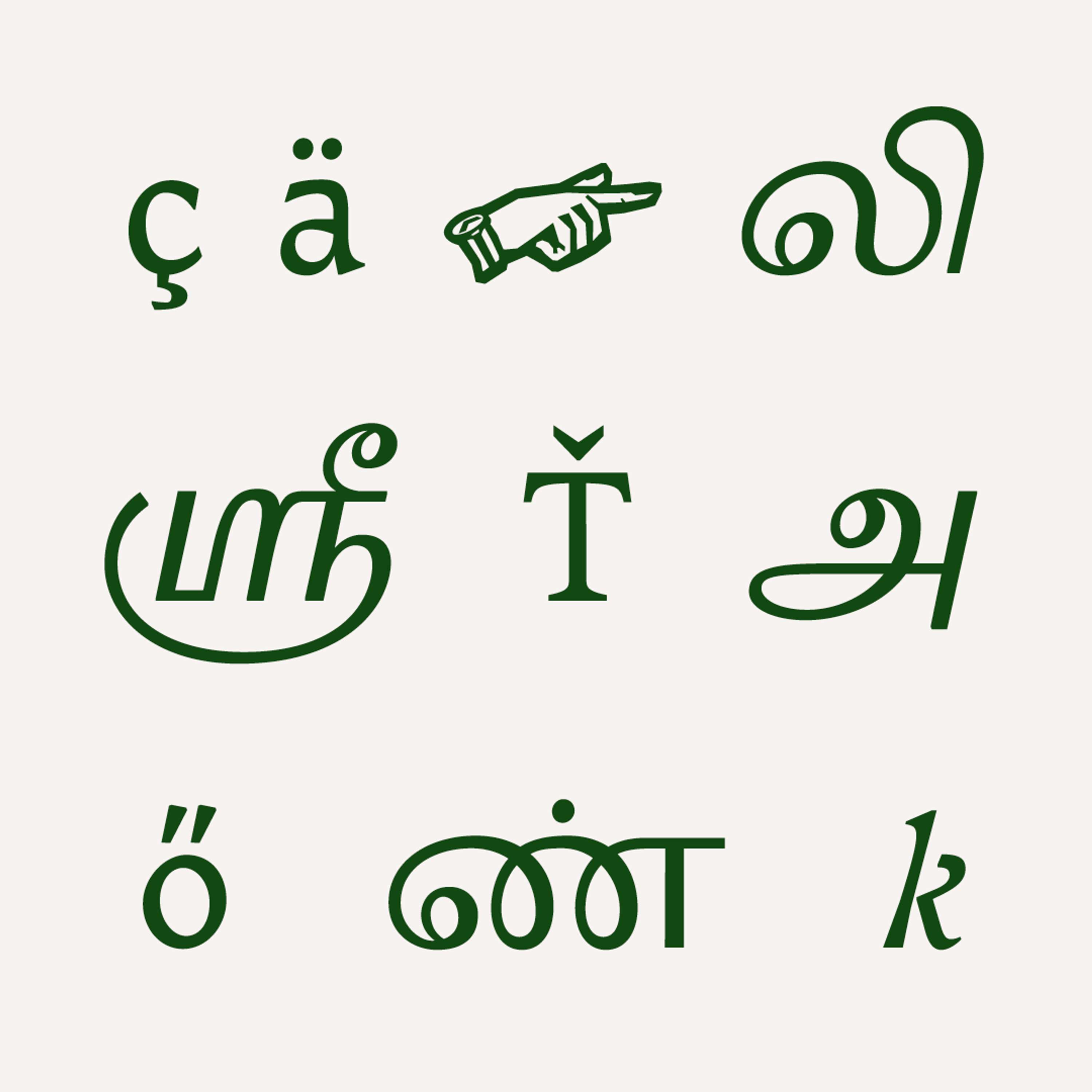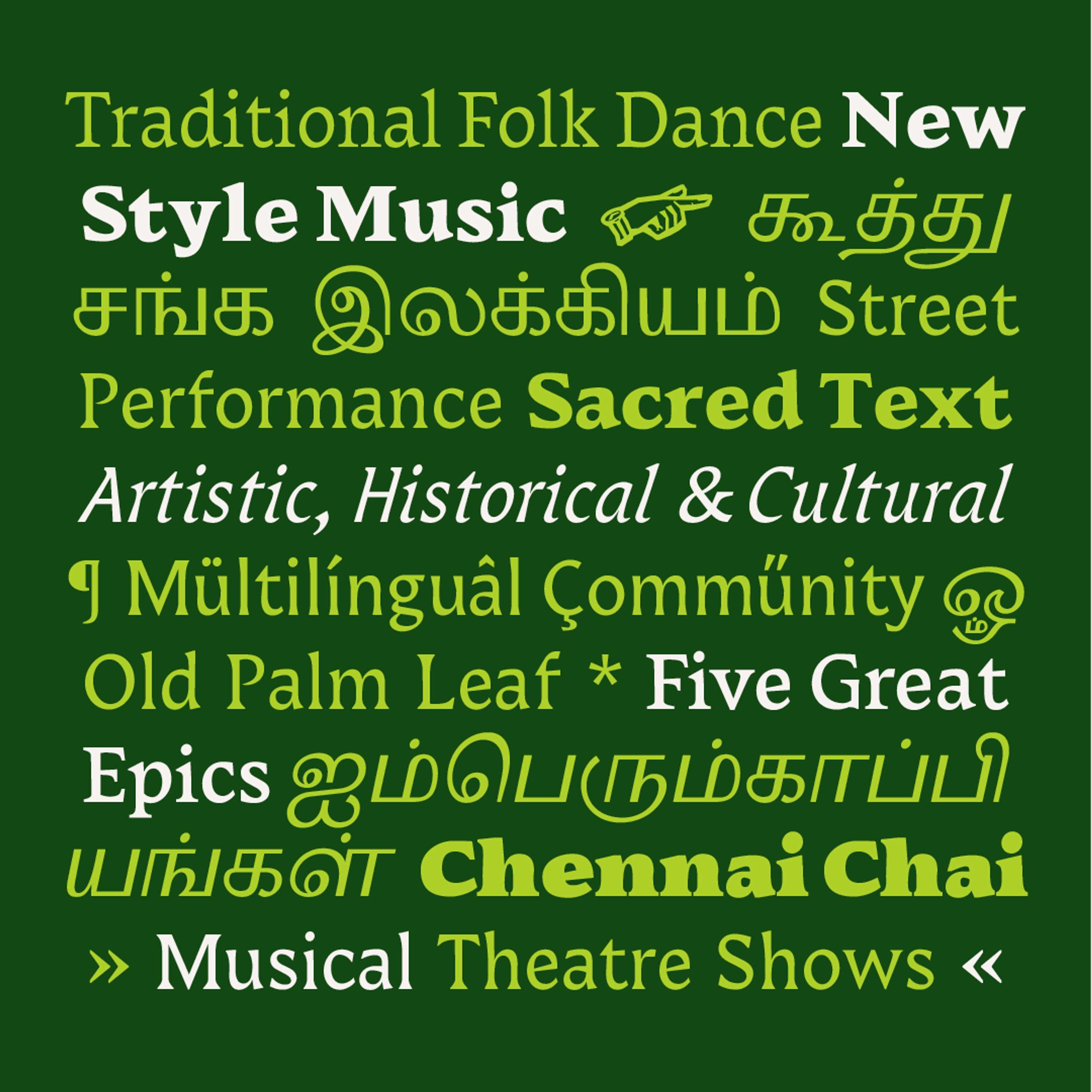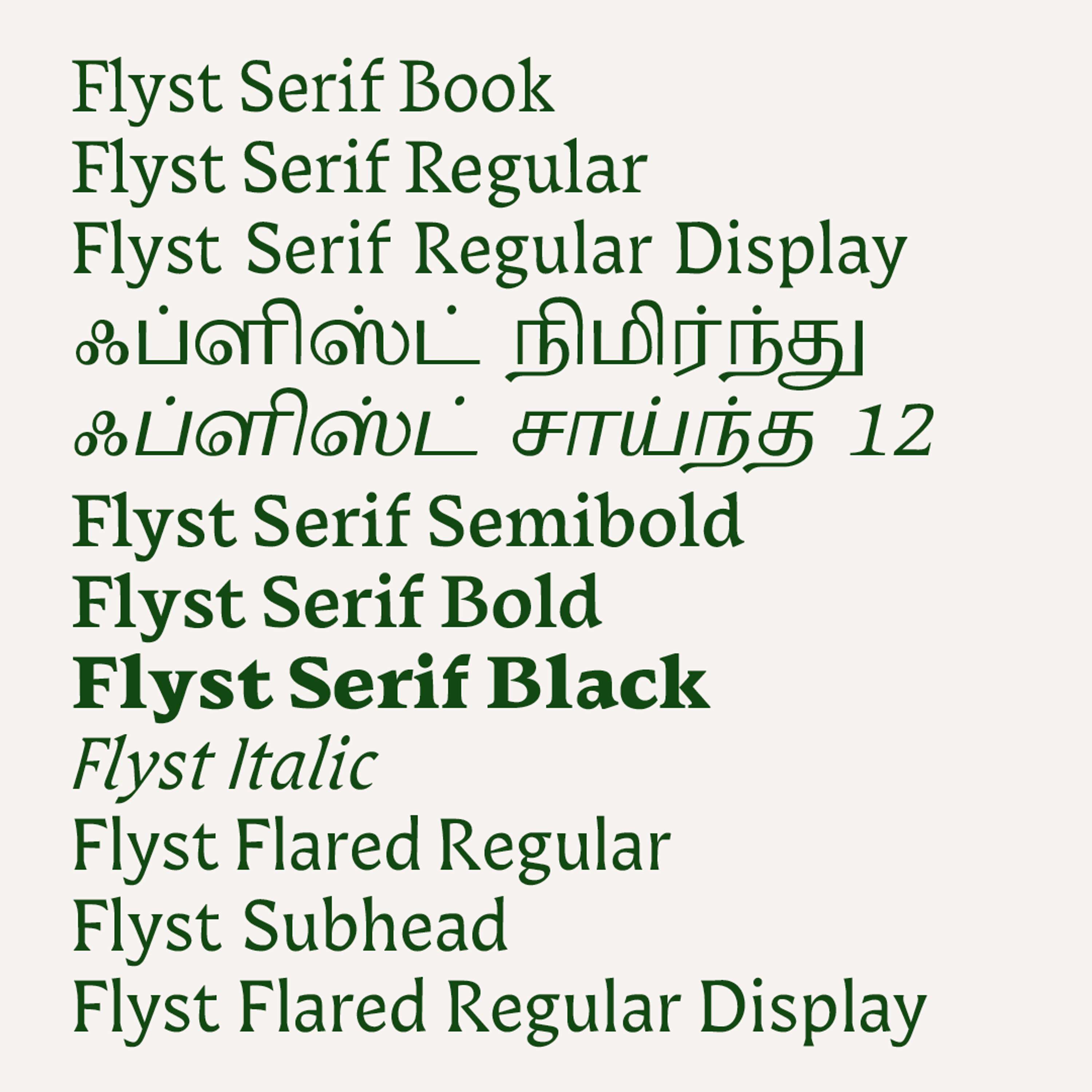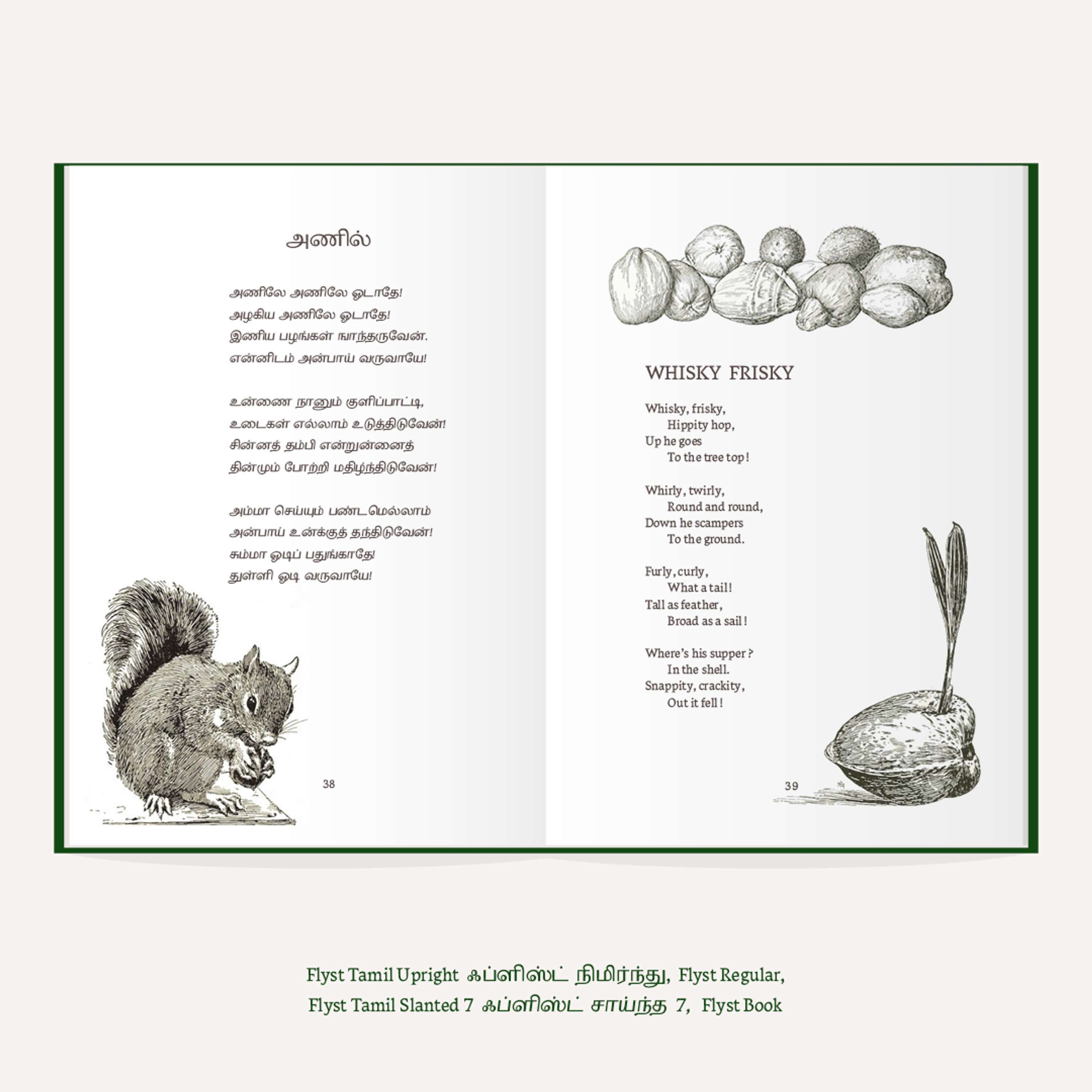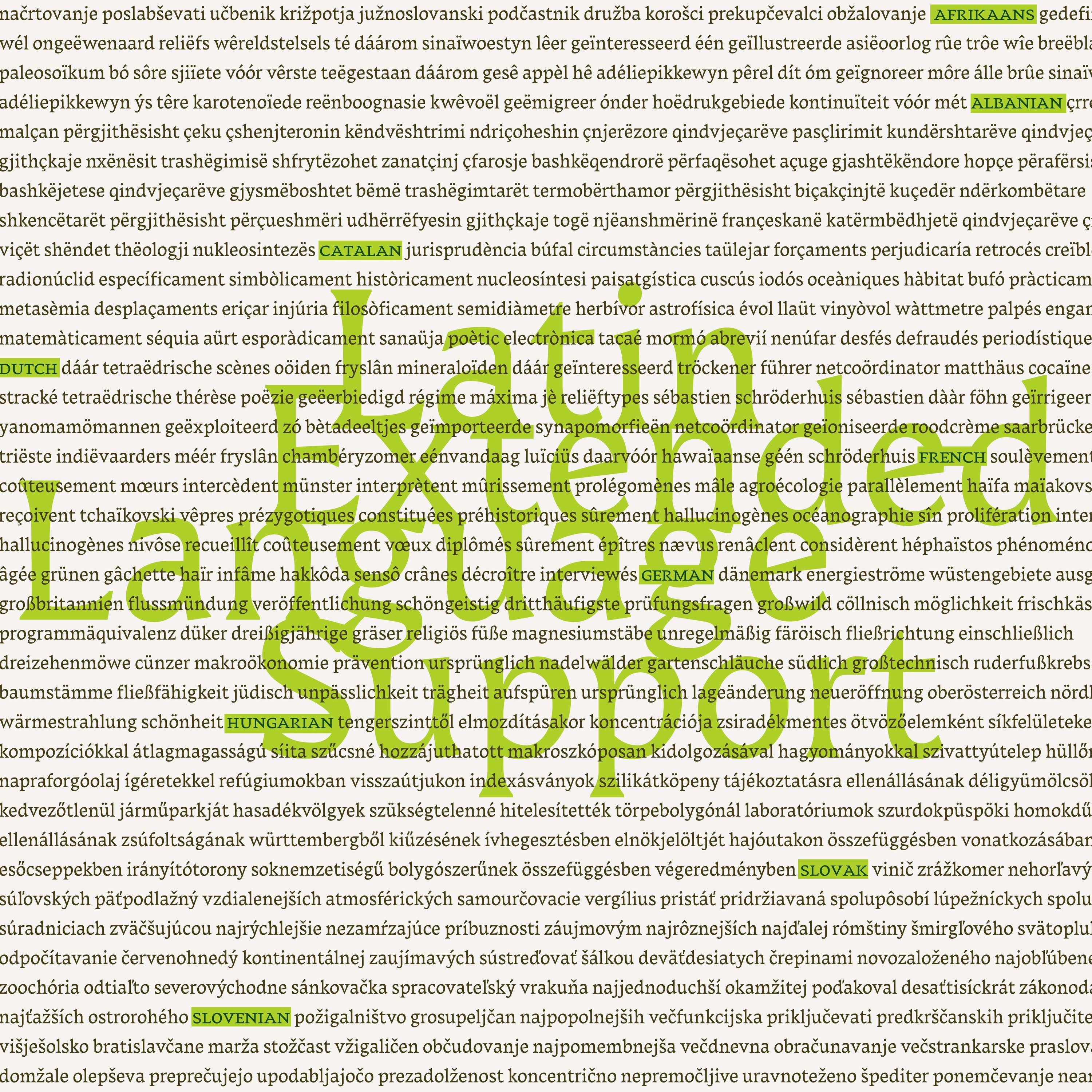
Flyst Typeface
A multi-style typeface in Latin and Tamil scripts supported with my research conducted for the MA dissertation Visual Analysis of Tamil Types. Features of the type family include: Serif and flared styles for Latin, a universal italic which works with both, multiple weights and optical sizes, and for the Tamil multiple angles based on slants in historical examples. The Tamil characterset also includes some historic characters. This portfolio document is typeset using Flyst.